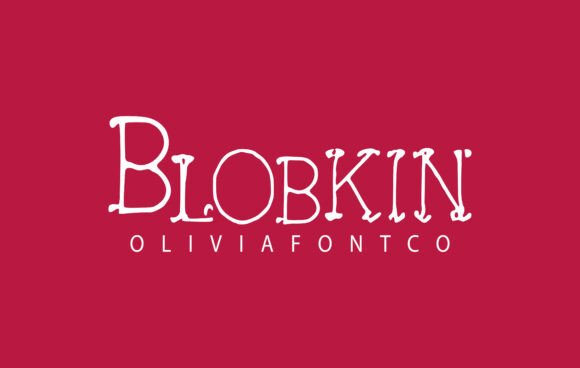
The Blobkin Font: A Romantic Handwritten Favorite
I’ll never forget the design struggle I faced while working on a wedding invitation project. My client wanted a font that was elegant, yet playful; something that would capture the essence of their special day. After hours of scrolling through font libraries, I stumbled upon the Blobkin font. It was love at first sight! 💕
Blobkin font is an authentic handwritten font with a romantic touch. Expertly designed to be a true favorite, this font has the potential to take your creative ideas to the highest level. This font is legible and looks great as a title or body text. It’s perfect for many different designs, including magazine headlines, social media, branding, wedding invitations, cards, and more.
- ✨ Legibility: Blobkin font is incredibly easy to read, making it perfect for body text or long-form content.
- ✅ Versatility: This font works beautifully in various design contexts, from digital to print.
- 💕 Romantic Touch: The handwritten feel of Blobkin font adds a touch of warmth and personality to any design.
- 🎨 Creative Freedom: With its range of OpenType features and glyphs, Blobkin font offers endless creative possibilities.
While Blobkin font is an excellent choice, there are a few things to keep in mind:
- ⚠️ Limited Contrast: Some users may find that the font lacks contrast between letters, which can make it harder to read in certain contexts.
- 🤔 Glyph Limitations: While Blobkin font has a range of OpenType features, some users may find that it lacks certain glyphs or special characters.
Blobkin font was designed with love and care by a talented typographer who wanted to create a font that would capture the essence of handwritten writing. The designer drew inspiration from classic script fonts, but with a modern twist. The result is a font that’s both elegant and playful.
Q: Is Blobkin font suitable for body text?
A: Yes, Blobkin font is legible and can be used for body text, but it’s also beautiful as a title or headline font.